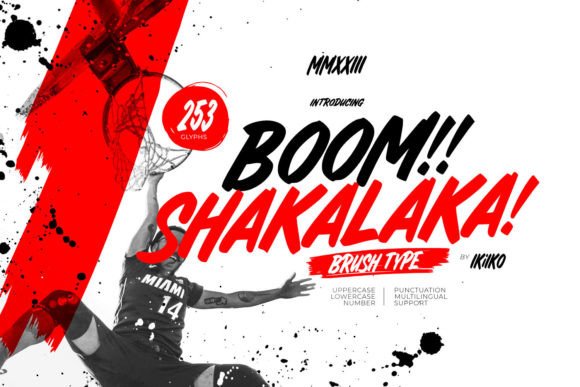
Boom Shakalaka Font: Elevate Your Designs with this Urban-Style Brush Display Font
The world of typography is vast and diverse, with numerous font styles to choose from, each with its unique characteristics and uses. Among these, display fonts hold a special place in the hearts of designers, as they offer a way to make a bold statement and add personality to any project. One such font that has been making waves in the design community is the Boom Shakalaka Font. In this article, we’ll delve into the world of Boom Shakalaka, exploring its features, benefits, and uses, and why it’s a great addition to your font library.
What is Boom Shakalaka Font?
Boom Shakalaka is an urban-style brush display font that embodies the essence of modern, edgy design. Its bold, expressive, and trendy aesthetic makes it perfect for projects that require a statement piece. The font’s unique brush-like texture gives it a raw, hand-crafted feel that adds a touch of personality to any design.
Why Choose Boom Shakalaka Font?
So, what makes Boom Shakalaka Font stand out from the crowd? Here are a few reasons why it’s a great addition to your font library:
- Bold and Expressive: Boom Shakalaka Font is designed to make a statement. Its bold, expressive letters are perfect for headlines, titles, and any other design element that needs to grab attention.
- Urban-Style Aesthetic: The font’s urban-style aesthetic gives it a modern, edgy feel that’s perfect for designs that require a bit of attitude.
- Versatile: Despite its bold nature, Boom Shakalaka Font is surprisingly versatile. It can be used for a wide range of projects, from posters and flyers to social media graphics and website headers.
- Easy to Read: Despite its bold, expressive nature, Boom Shakalaka Font is surprisingly easy to read, making it perfect for designs that require a clear, concise message.
Uses of Boom Shakalaka Font
So, how can you use Boom Shakalaka Font in your designs? Here are a few ideas to get you started:
- Posters and Flyers: Boom Shakalaka Font is perfect for creating eye-catching posters and flyers that require a bold, attention-grabbing headline.
- Social Media Graphics: The font’s urban-style aesthetic makes it perfect for social media graphics, such as Instagram posts, Facebook headers, and Twitter graphics.
- Website Headers: Add a touch of personality to your website with Boom Shakalaka Font. Its bold, expressive letters are perfect for headers, titles, and other design elements.
- Logos and Branding: Boom Shakalaka Font can also be used for logos and branding, adding a touch of modern, edgy style to your brand’s identity.
Tips for Using Boom Shakalaka Font
Here are a few tips to keep in mind when using Boom Shakalaka Font:
- Use it Sparingly: While Boom Shakalaka Font is bold and expressive, it can be overwhelming if used excessively. Use it sparingly to create a statement piece or add emphasis to a specific design element.
- Pair it with a Simple Font: To create visual balance, pair Boom Shakalaka Font with a simple, clean font. This will help to create contrast and make your design more readable.
- Experiment with Colors: Boom Shakalaka Font looks great in a variety of colors. Experiment with different hues and shades to find the perfect color scheme for your design.
In conclusion, Boom Shakalaka Font is a bold, expressive, and trendy urban-style brush display font that’s perfect for designers looking to add a touch of personality to their projects. Its versatility, ease of use, and modern aesthetic make it a great addition to any font library. Whether you’re working on a poster, social media graphic, website header, or logo, Boom Shakalaka Font is sure to elevate your design and make it stand out from the crowd.